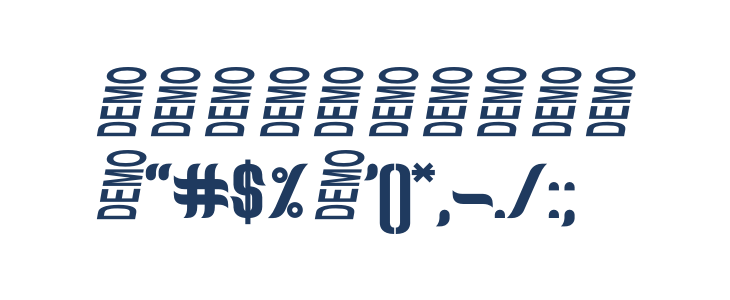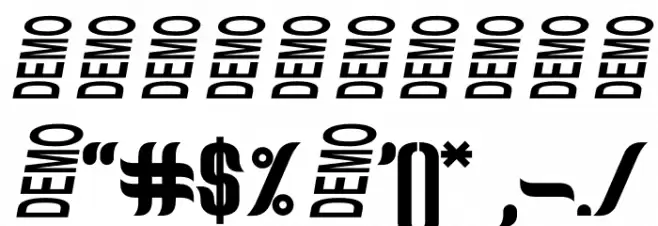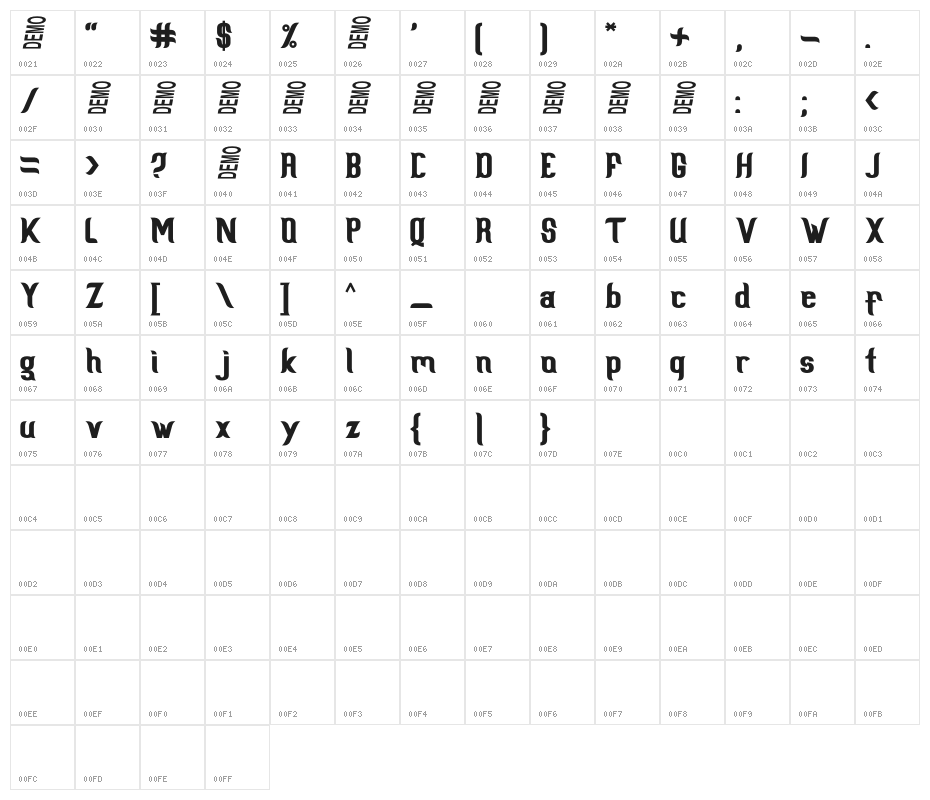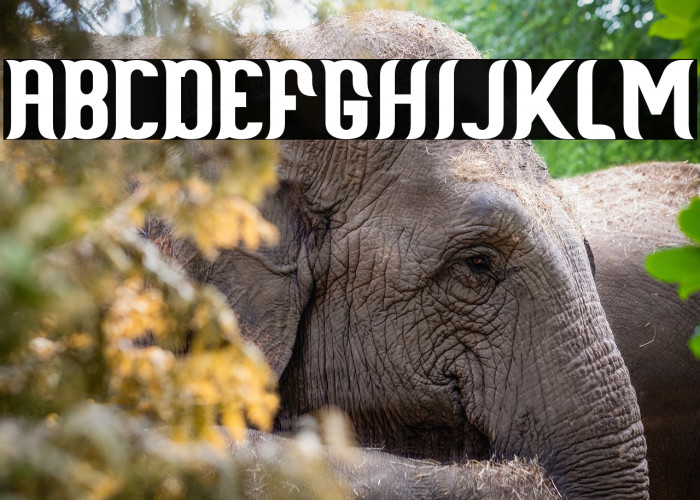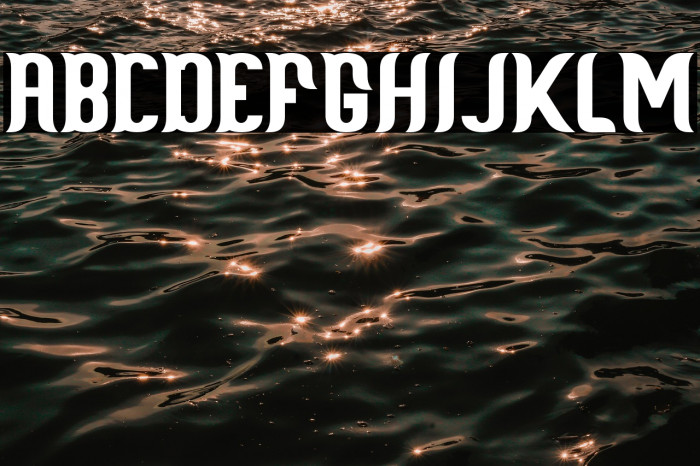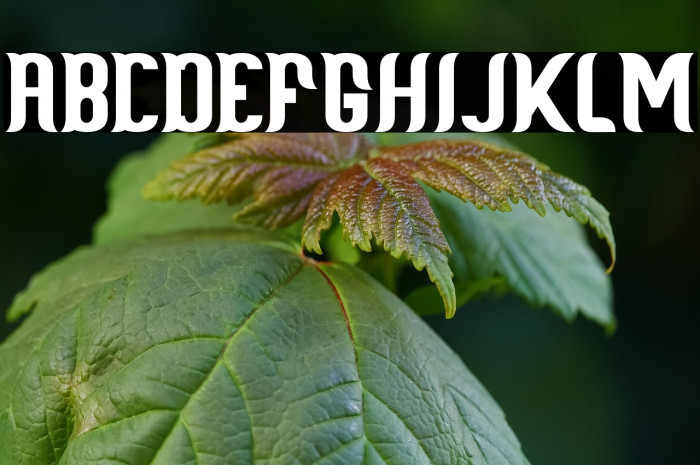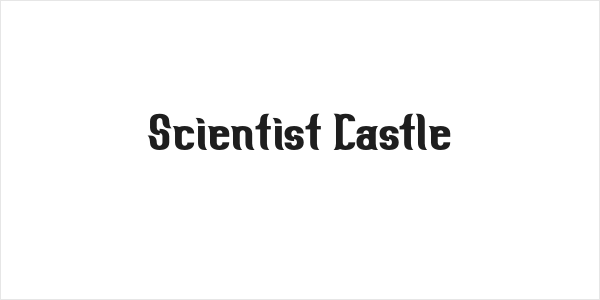
Scientist Castle Font
Scientist Castle Description
This font features a bold and distinctive style with a strong presence, characterized by its thick and slightly curved strokes. The uppercase letters exhibit a unique blend of sharp angles and smooth curves, creating a dynamic and eye-catching appearance. The lowercase letters maintain this boldness while offering a more fluid and approachable look. The numerals and special characters are consistent with the overall style, ensuring a cohesive visual experience. This font's design is both modern and slightly retro, making it versatile for various creative applications.
| Overall Style | Modern, Retro |
| Proposed Projects | Ideal for branding, poster design, and headlines that require a strong visual impact. |